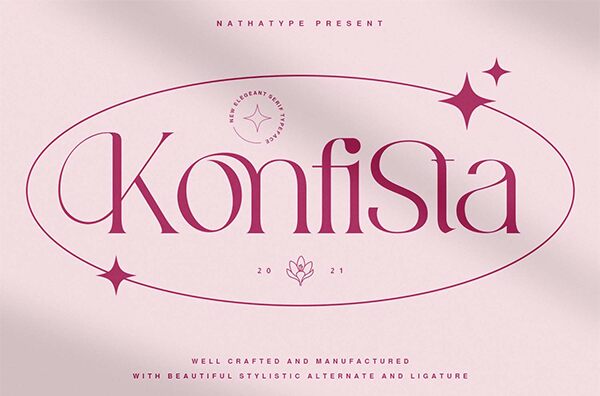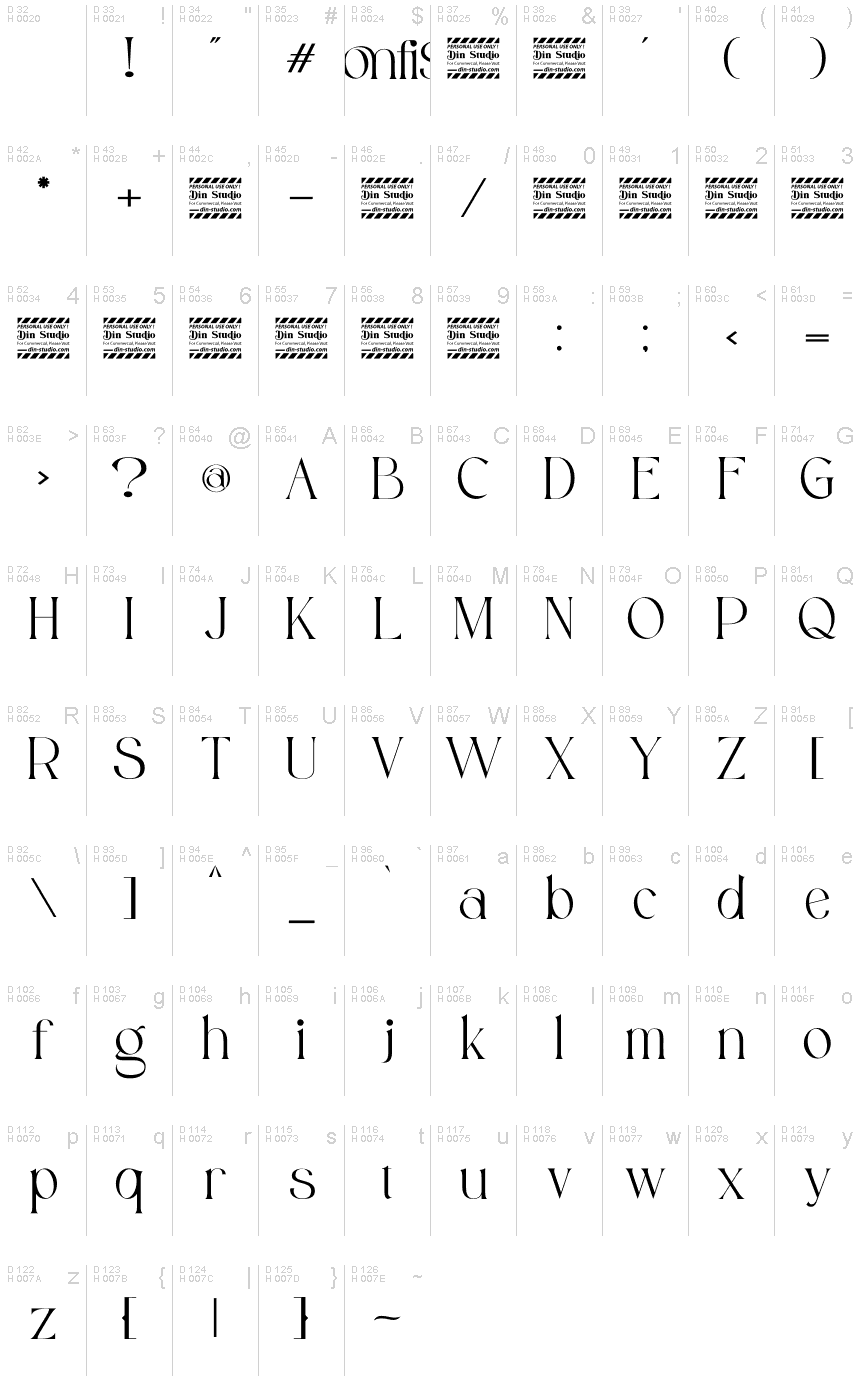
Konfista Personal Use
Konfista is a light, classy serif font designed by Donis Miftahudin. It's perfect for elegant projects such as wedding invitations, fashion magazines, and restaurant menus. Its timeless look makes it a great choice for branding and logo designs.
Konfista is one of the most stylish fonts designed to create the perfect contrast between your headings and body copy. Bring your branding to life and add a touch of modernity and style with Konfista. It is ideally applicable for your social media banners, posts, ads, printed quotes, t-shirt designs, packagings, or even modern texts overlaying any background images.